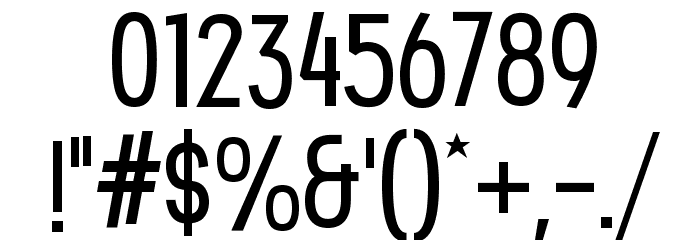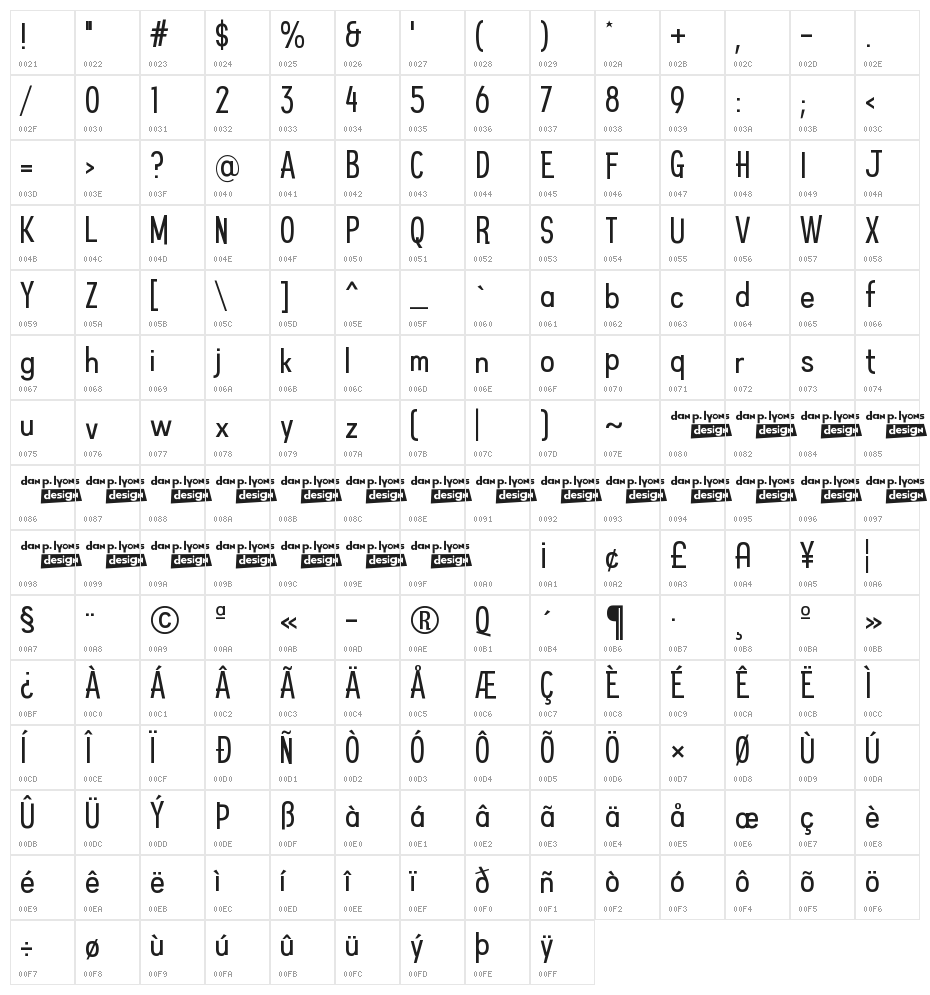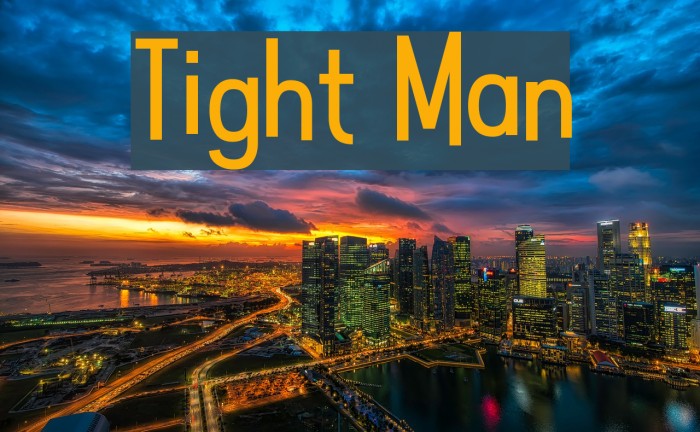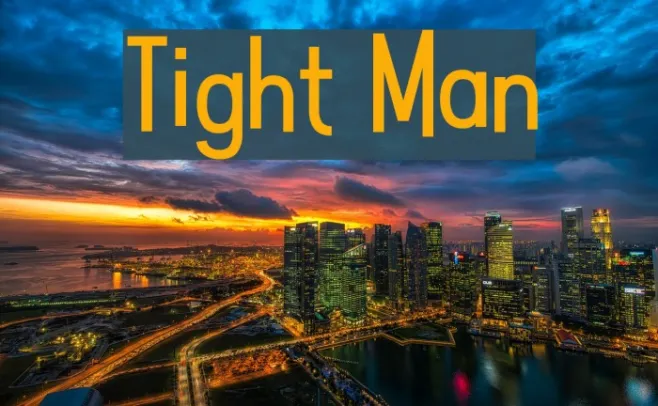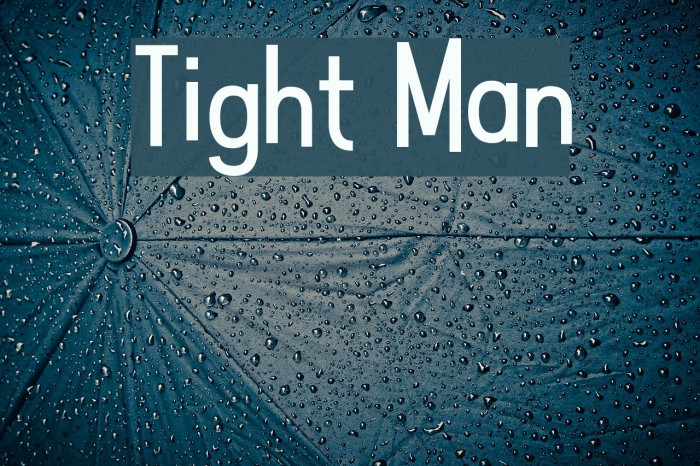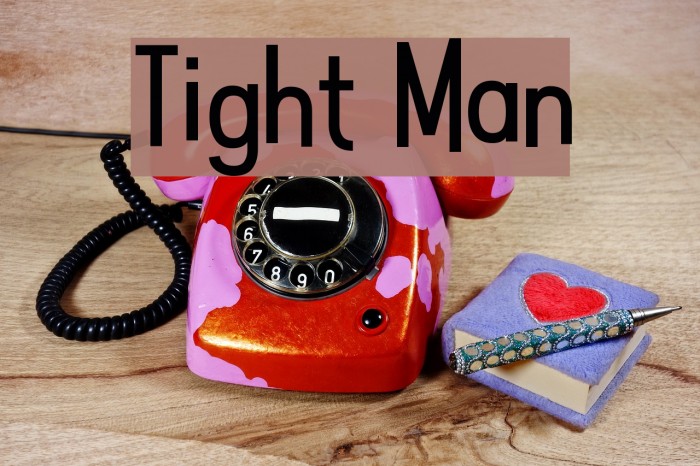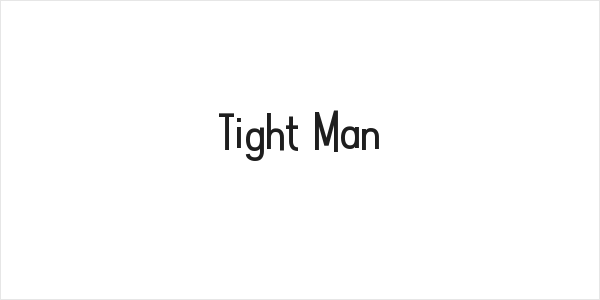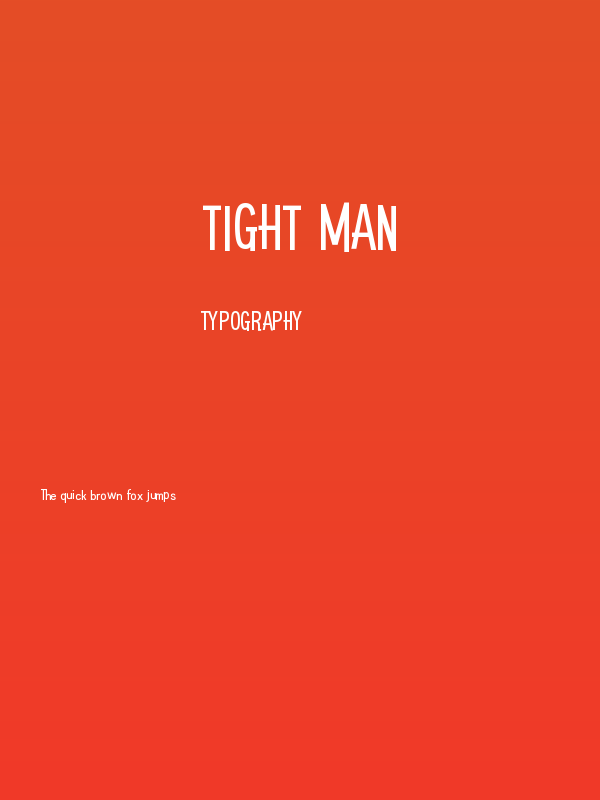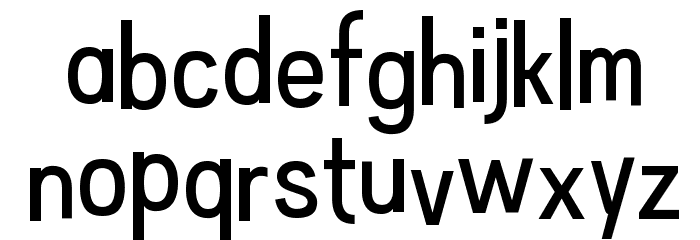
Tight Man Font
Tight Man Description
This font features a bold and modern sans-serif style with clean, straight lines and a uniform stroke width. The characters are tall and slightly condensed, giving a sleek and professional appearance. The uppercase letters are prominent and commanding, while the lowercase letters maintain a consistent height and spacing, ensuring readability. The numerals are clear and distinct, matching the overall geometric aesthetic. Special characters are well-defined, adding versatility for various design needs. This font's simplicity and clarity make it suitable for a wide range of applications.
| Use Case | Headlines, Logos, Digital Interfaces |
| Proposed Projects | Ideal for branding, advertising, headlines, and digital interfaces where clarity and modernity are essential. |